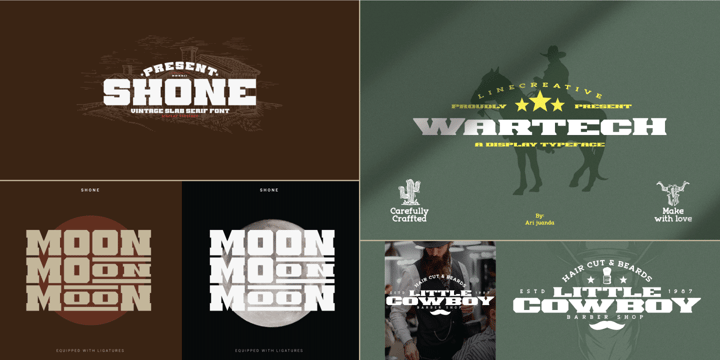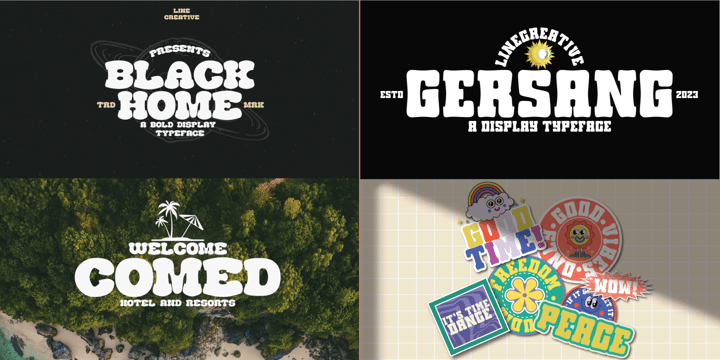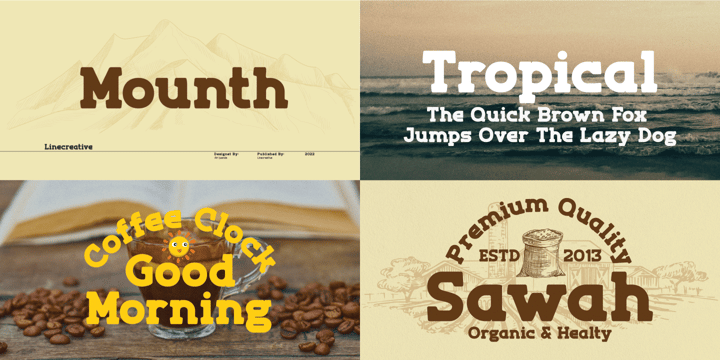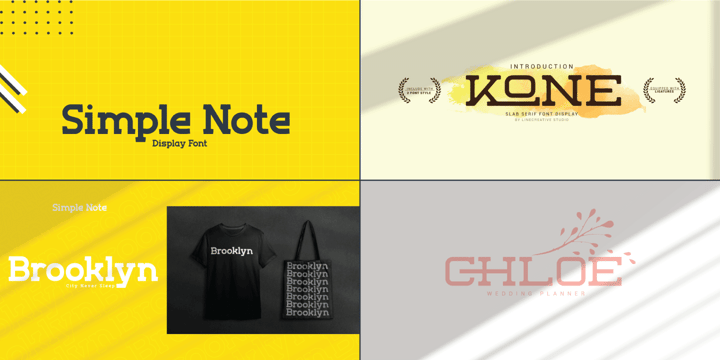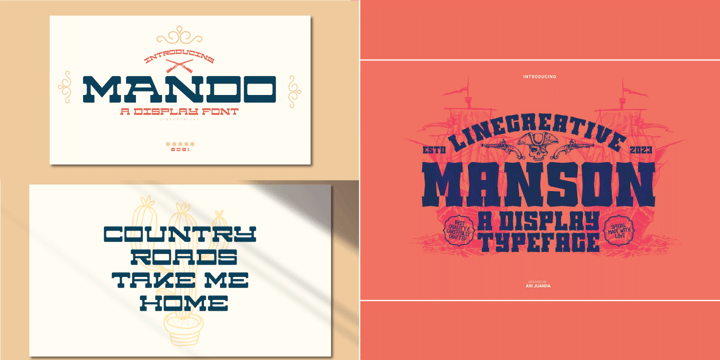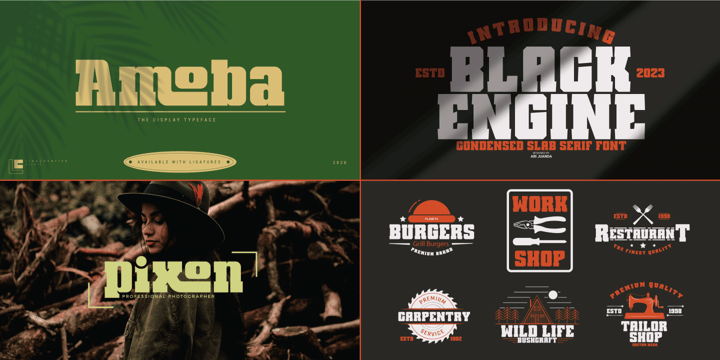
The Mini Bundle Slab Serif Font
Introducing the Ultimate Slab Display Font Bundle – a curated collection that brings together a diverse range of slab-style fonts, carefully crafted to meet all your design needs. This comprehensive bundle is a one-stop solution for enthusiasts, designers, and creatives seeking a versatile array of slab fonts.